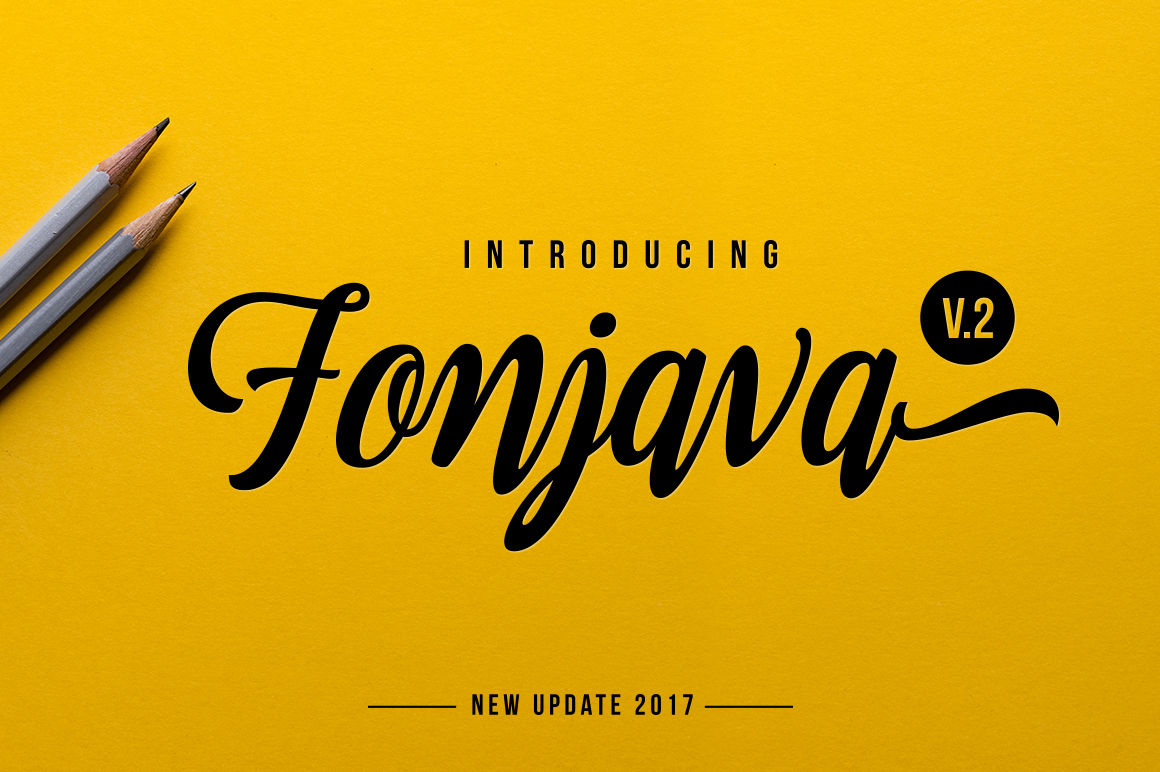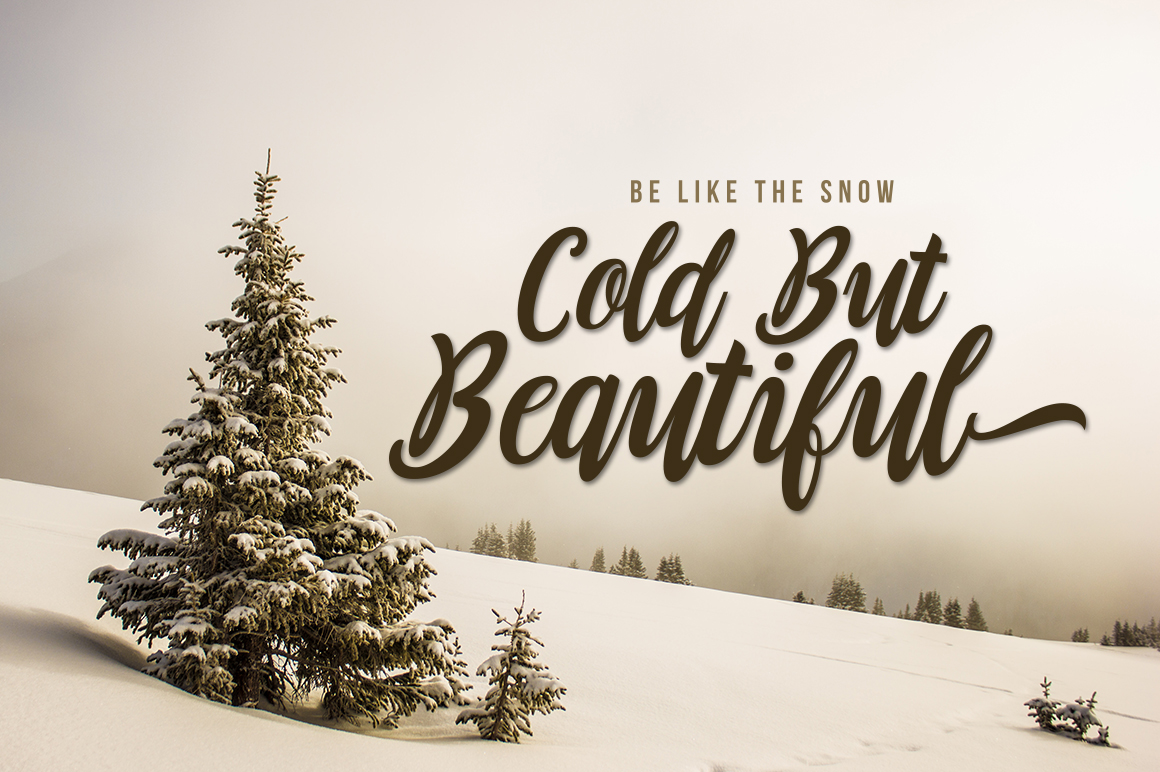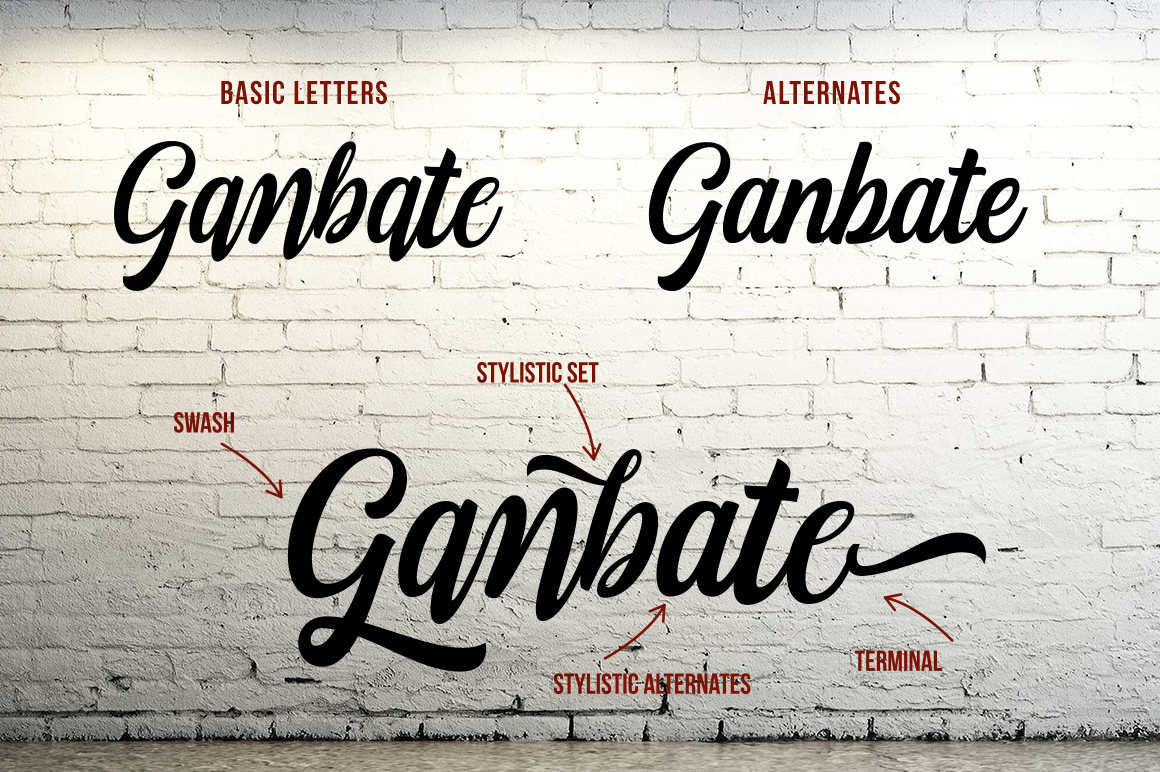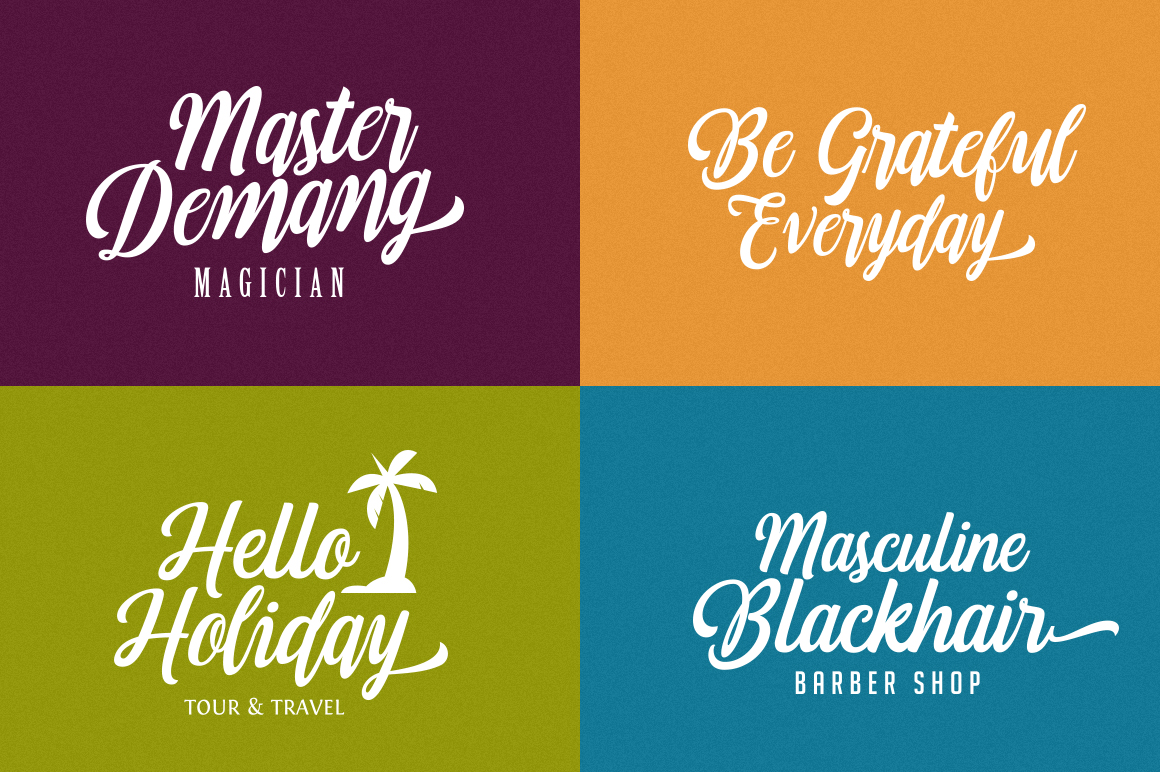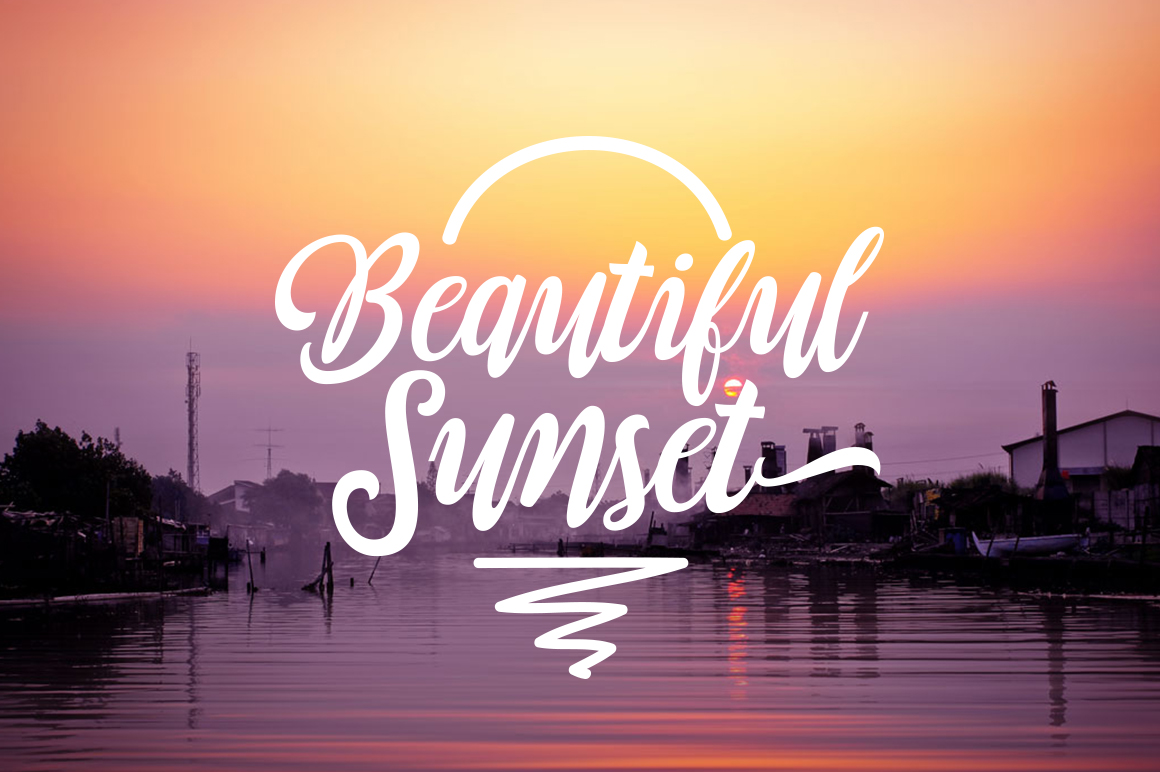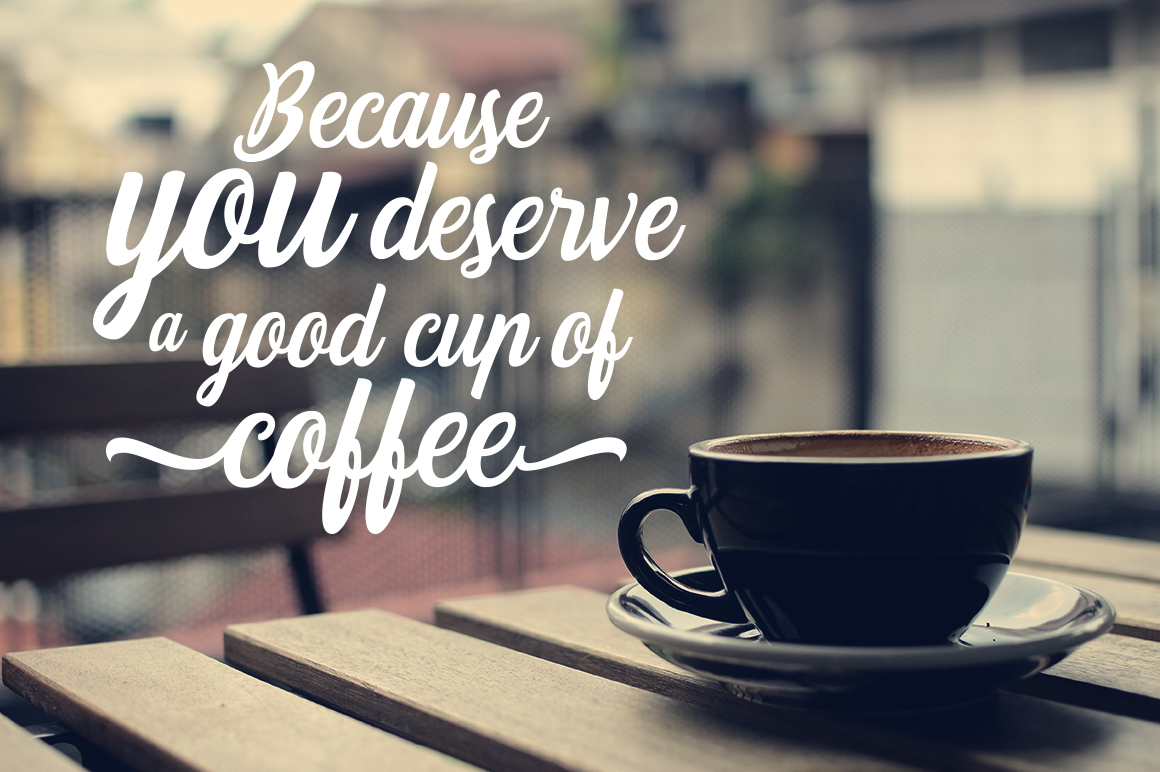
Fonjava Font
About Fonjava Font
Fonjava is a gorgeous painterly script font, ideal for logotype and other display purposes. This font is a great way to give your designs an fascinating appeal, and a perfect accompaniment to hip and trendy designs.